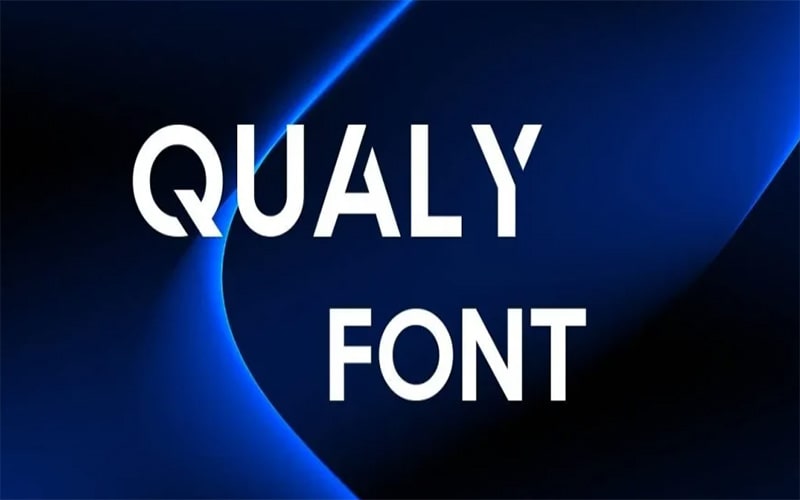
Qualy Logo Font is a beautiful sans-serif oblique typeface that has a rough and stylish texture. Shina took charge of designing and launching it initially. This is a handmade brush typeface.
This amazing font is available in two styles “Qualy Logo light”, and “Qualy Logo bold”. This is one of the extraordinary qualities that makes it famous in the font design industry.
This amazing font supported different international languages such as Irish, Italian, Romanian, Russian, Finnish, French, Spanish, Swedish, and Uzbek.
Qualy Logo Font
This font is famous in the market because of its gay and amazing look. Many designers use it in their project designs. Because it presents bold letters that will give designer creations a lot of personalities.
This amazing typeface has 26 uppercase and lowercase letters, punctuation marks, numerals, and some special characters. Let’s look at its lovely texture.